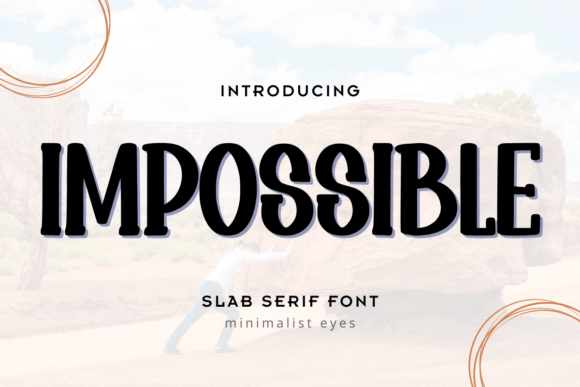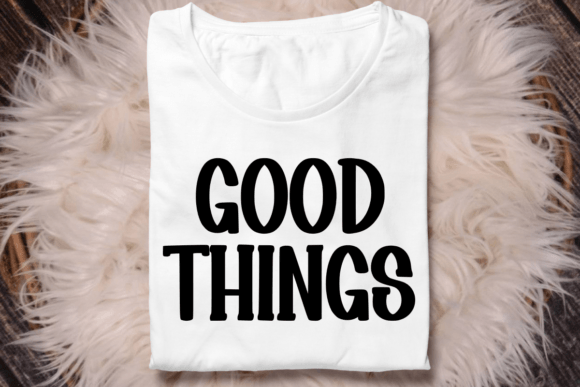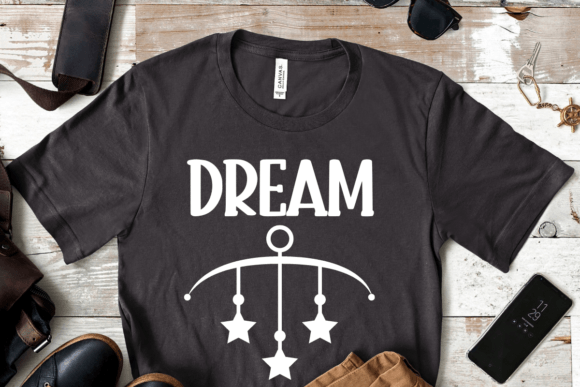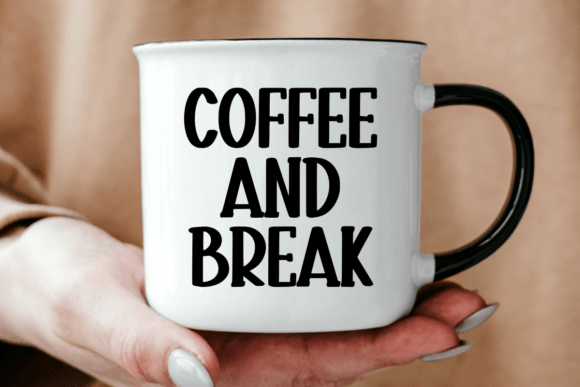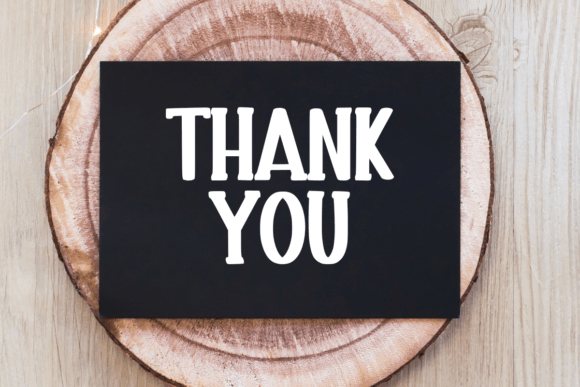
The Birth of a New Design Favorite
As designers, we’ve all been there – staring at a blank page, trying to conjure up the perfect font to match our vision. For some, it’s a moment of pure excitement, while for others, it’s a daunting task. But what if I told you there’s a font that can turn that blank page into a canvas of creativity?
Meet Impossible Font, a modern slab serif font that’s as delightful as it is functional. This charming font is designed to bring a sense of warmth and playfulness to any design, making it perfect for children’s books, invitations, and branding. Its rounded edges and whimsical curves radiate a sweet charm that’s impossible to resist (pun intended).
Key Features of “Impossible Font”
- Unique Characteristic: The “Impossible Font” features a unique, hand-drawn aesthetic with subtle irregularities that give it a human touch.
Impossible Font Review
At first glance, the Impossible Font seemed like a game-changer. The ✨ unique, hand-drawn style and the claim of being “impossible to replicate” caught my attention. I decided to dive deeper and see if it truly lives up to its promises.
- ✨ The font’s eclectic, whimsical feel is perfect for adding a touch of personality to your designs.
- ✨ The hand-drawn style gives it a human touch that’s often lacking in digital fonts.
- ✨ It’s a great choice for designers looking to add some visual interest to their work.
- ⚠️ The font’s readability can be a concern, especially at smaller sizes.
- ⚠️ The lack of standardization in the font’s style can make it difficult to use in large-scale projects.
- ⚠️ The font’s uniqueness can also be a double-edged sword – it may not be suitable for projects where consistency is key.
While the Impossible Font has some exciting qualities, its limitations hold it back from being a go-to choice for most designers. It’s perfect for small projects or designs where a touch of whimsy is needed, but it may not be the best fit for larger-scale projects or those requiring a more polished look.
Impossible Font Practical Application Guide
Tips for Getting the Most Out of the Impossible Font
Experiment with layering multiple text elements to create a sense of depth and realism. Adjust the opacity and color of the text to achieve a cohesive look. Use the “Warp” tool in Adobe Photoshop or Illustrator to distort the text and create a more dynamic effect.
The Impossible Font is perfect for creating eye-catching headings and titles, adding a touch of sophistication to presentations and documents. It’s also great for creating unique and memorable logos, or adding a touch of whimsy to social media graphics and advertisements.
Alternatives to Impossible Font
1. Arial Black
Arial Black is a sans-serif font that can be used for titles and headings. It is thicker and bolder than Arial, making it suitable for use in situations where a font needs to stand out. Unlike Impossible Font, Arial Black is a standard font that can be easily installed on most devices.
2. Impact
Impact is a sans-serif font that is known for its bold and condensed design. It is often used for titles and headings in newspaper and magazine layouts. While it is not as dramatic as Impossible Font, Impact can still be used to create a strong visual impact.